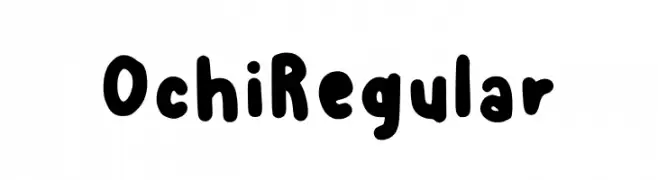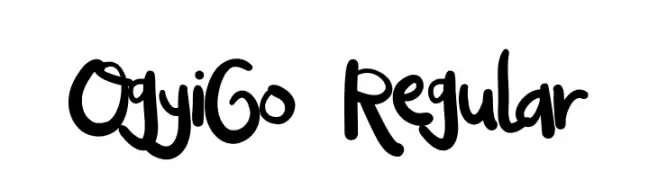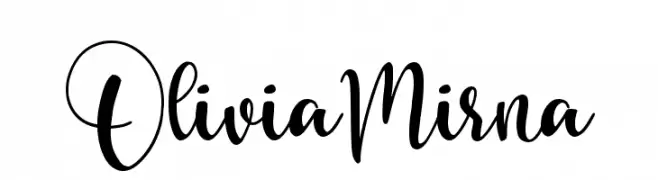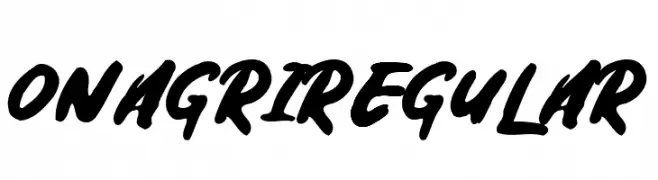
A bold, geometric font with a modern and clean aesthetic.
A minimalist, geometric font with thin, consistent strokes and a modern aesthetic.
A playful, handwritten font with whimsical and decorative elements.
A futuristic, angular font with a geometric and edgy design.
A playful, bold font with rounded, thick strokes and a whimsical touch.
A playful, handwritten font with bold, rounded strokes and a lively appearance.
A playful, bold font with rounded edges and a bubbly, handwritten style.
A bold, playful dingbat font with baby and nature-themed icons.
A lively and elegant script font with flowing, cursive letterforms.
A bold, dynamic handwritten font with expressive strokes and a playful style.